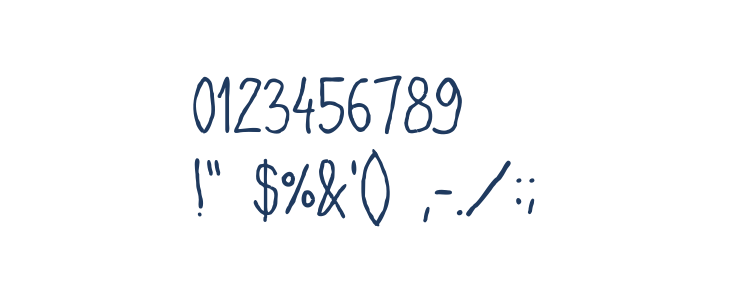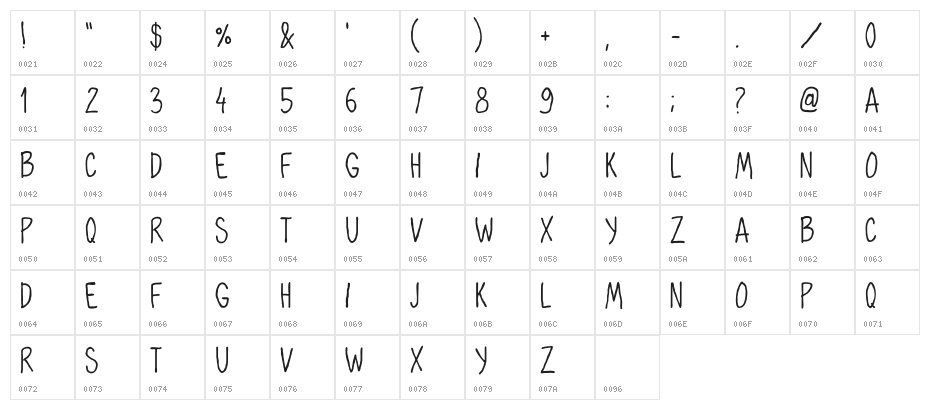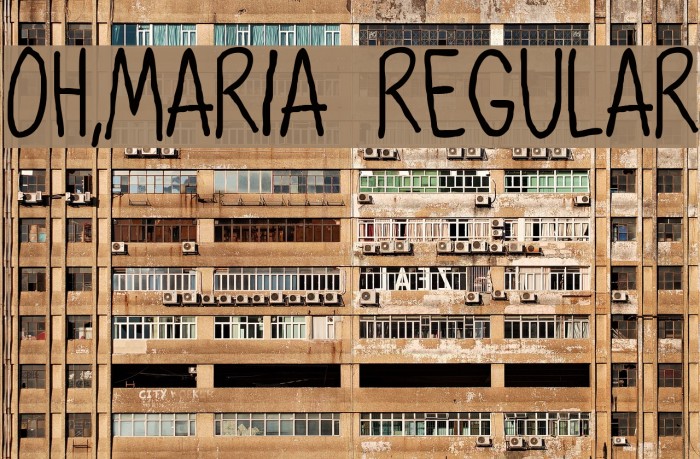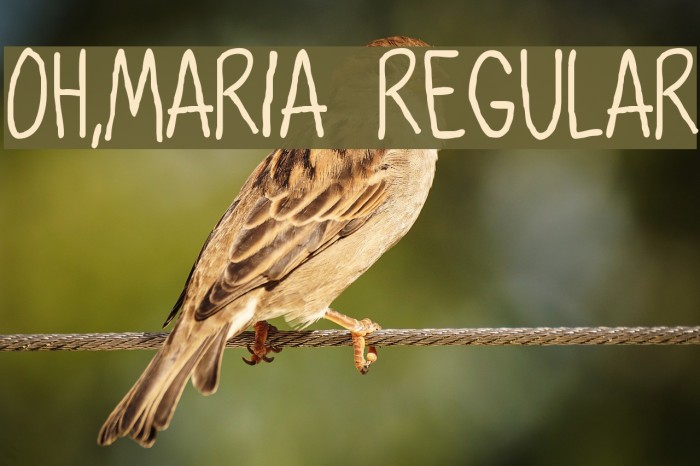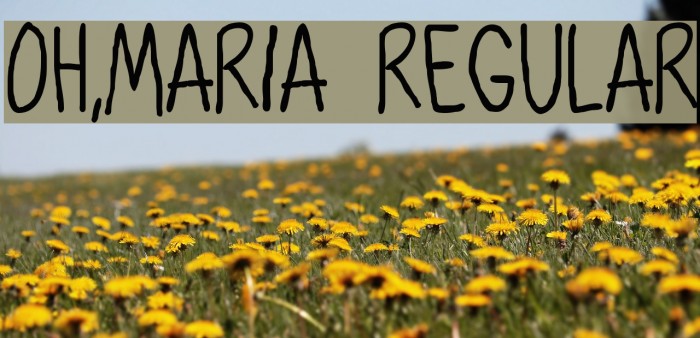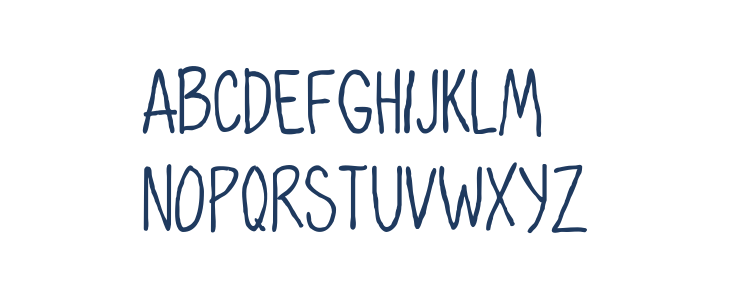
Oh,Maria Regular Font
Oh,Maria Regular Description
This font features a playful and informal handwritten style, characterized by its irregular strokes and casual appearance. The letters are slightly elongated with a consistent stroke width, giving it a cohesive yet relaxed look. The uppercase and lowercase letters maintain a uniform height, contributing to its legibility. The numbers and special characters follow the same whimsical style, making it suitable for creative and informal projects. Its unique charm lies in the organic flow of the characters, which adds a personal touch to any design.
| Proposed Projects | Ideal for greeting cards, children's books, informal invitations, and creative branding. |